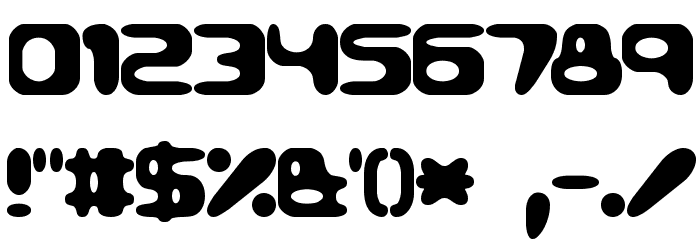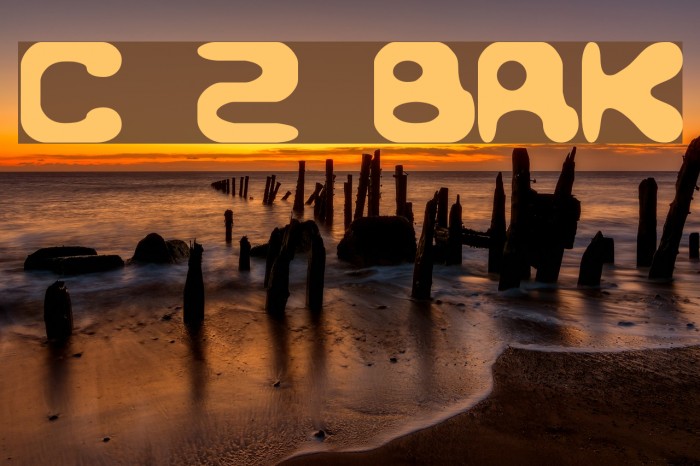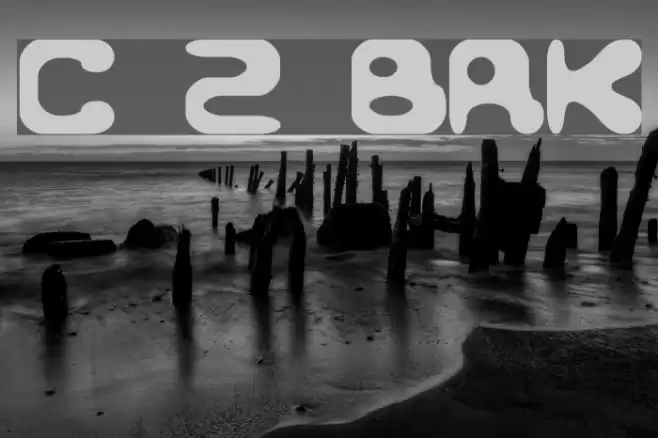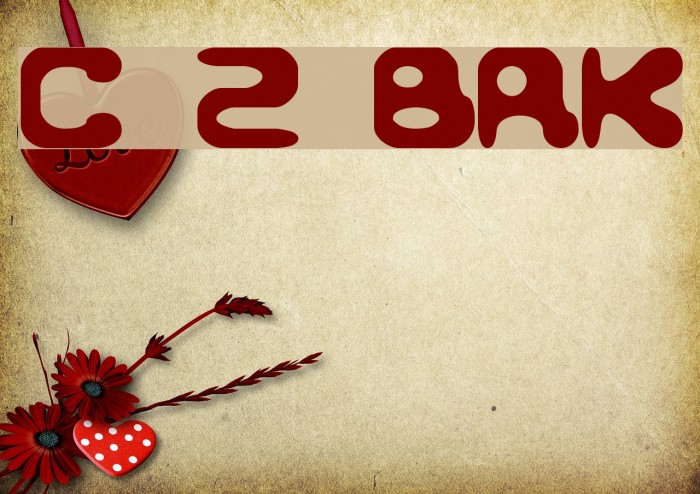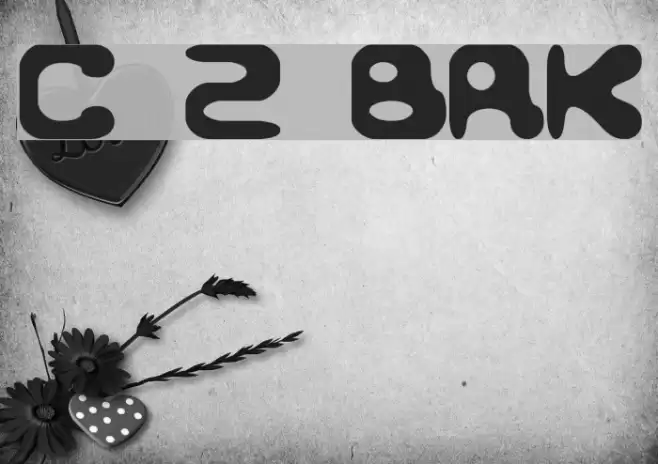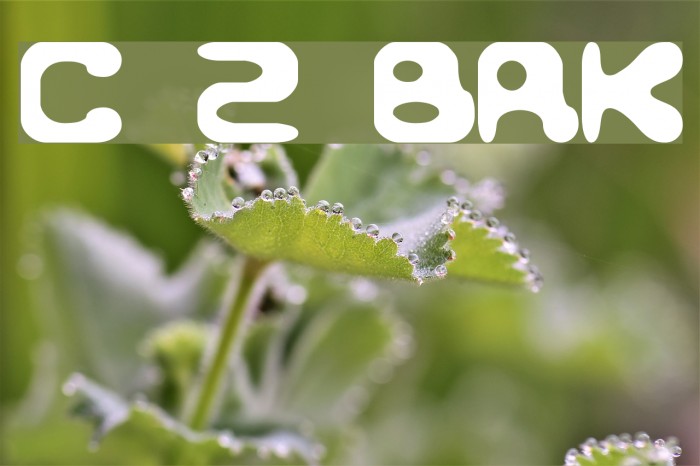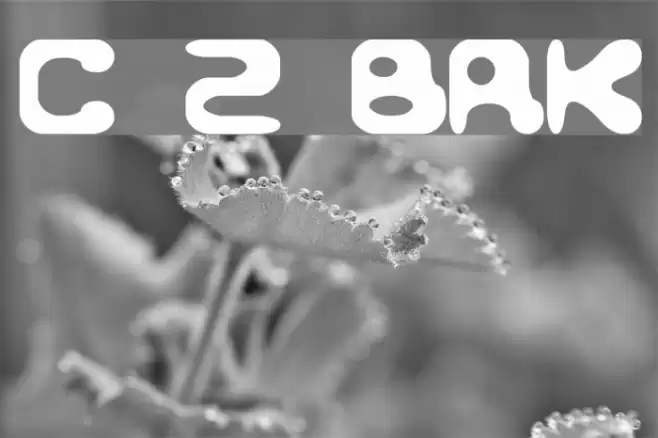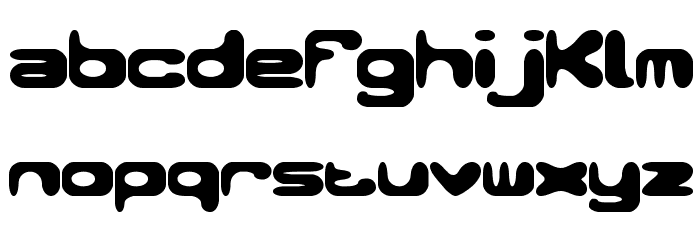
Conduit 2 BRK Font
Conduit 2 BRK Description
This font features a bold, rounded style with a futuristic and industrial feel. The characters are thick and have a smooth, continuous flow, giving them a unique, almost liquid appearance. The uppercase and lowercase letters maintain a consistent weight, while the numerals and special characters complement the overall design with their rounded edges and bold presence. The font's distinct style makes it stand out, offering a modern and playful aesthetic that is both eye-catching and versatile.
| Use Case | Logos, Headlines, Posters |
| Proposed Projects | Ideal for technology-themed projects, branding for modern products, posters, and digital media where a bold statement is needed. |